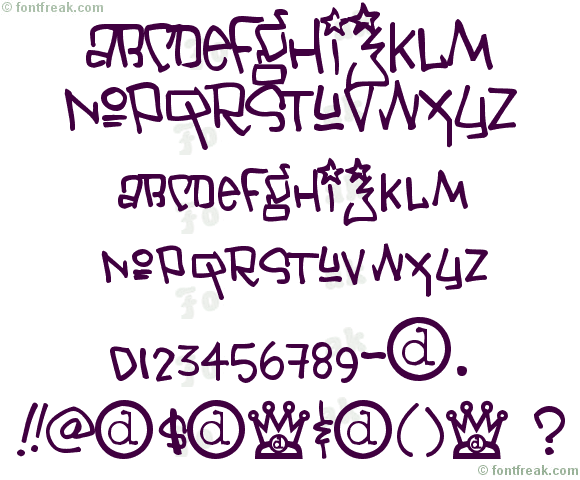
Janis
Introducing the Janis font by Matt Petty, a unique handwritten typeface that exudes personality and charm. This freeware font, created in 2001, features a playful and casual design, making it perfect for a variety of creative projects. The Janis font showcases a light stroke weight with a distinct lack of contrast, giving it an approachable and friendly appearance. The letters are loosely spaced, which enhances readability while maintaining a relaxed vibe. Decorative elements, such as whimsical stars integrated into the design, add flair and make it visually engaging.
The Janis font is ideal for several use cases. It shines in wedding invitations, where its informal yet elegant style can convey warmth and joy. Additionally, it works beautifully for children's book covers, bringing a sense of fun and whimsy to the pages. Small business owners can utilize Janis for restaurant menus, creating a welcoming atmosphere that invites patrons to enjoy their dining experience. Furthermore, content creators can employ this font in social media graphics or promotional materials, ensuring that their messaging stands out with a personal touch.
Targeted towards graphic designers, small business owners, and content creators, the Janis font provides a versatile option for those looking to add a distinctive flair to their work. Its informal style caters to audiences seeking creativity and authenticity in their projects.
What sets the Janis font apart is its unique blend of playfulness and readability, allowing it to adapt to various contexts while maintaining its character. With the Janis font free download available, you can easily incorporate this delightful typeface into your next design project, ensuring your work captures attention and resonates with your audience.